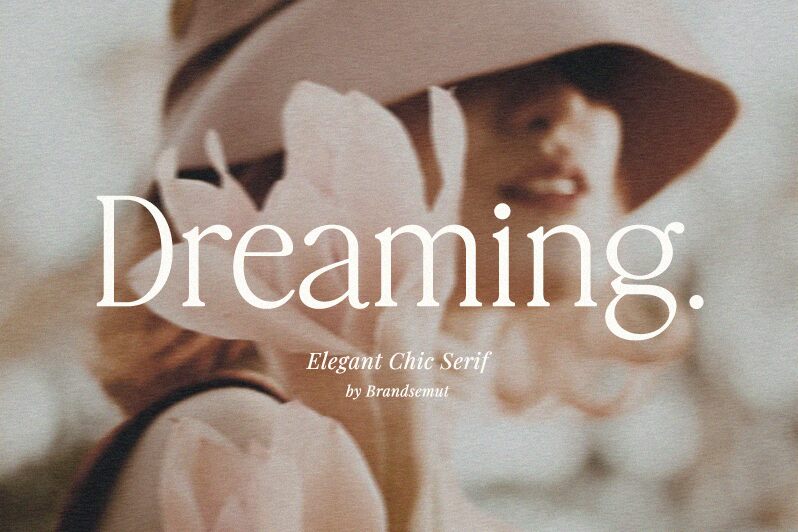
Dreaming
Dreaming, a captivating serif font by BrandSemut, exudes elegance and sophistication with its semi-light weight.
Its delicate strokes and graceful curves make it the perfect choice for wedding invitations, creating an enchanting atmosphere for that special day. With its timeless appeal, Dreaming adds a touch of class to editorial projects such as fashion magazines or high-end branding materials. Its versatility also extends to book covers, where it brings an air of nostalgia and whimsy to classic literature or fantasy novels. Let your imagination soar with Dreaming's dreamy serifs!